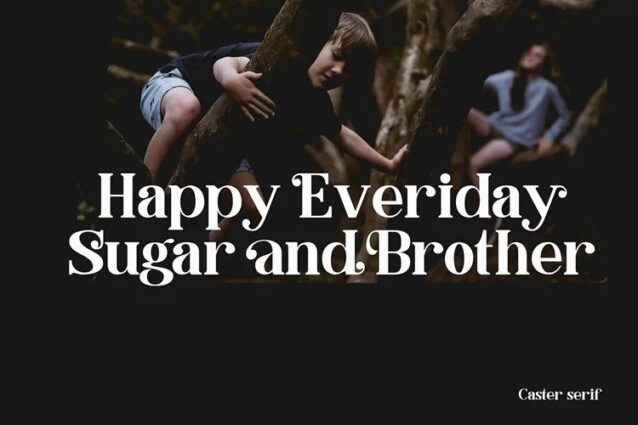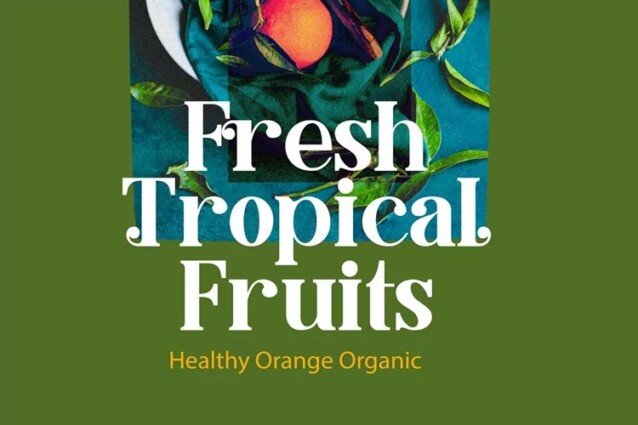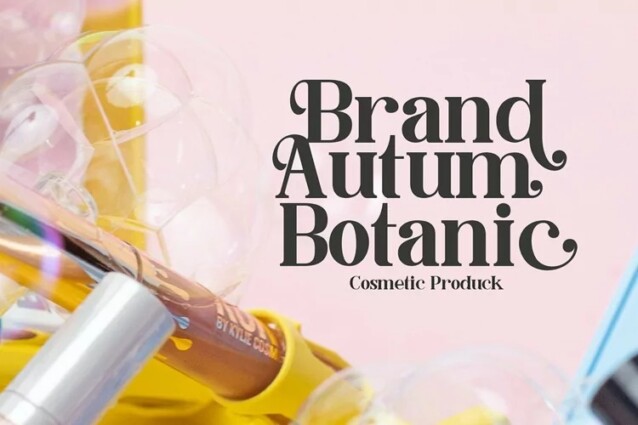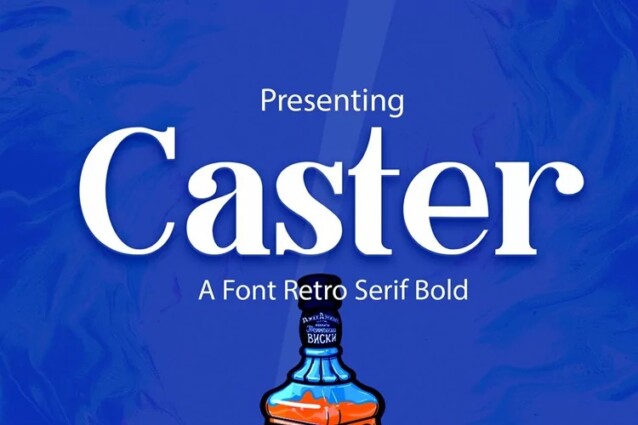
Caster Font
Caster Font is a modern condensed concave serif display typeface. As a typographic display it is useful for posters, logotypes, titles and short text in general.
This font is easy to read and bold, easy to play. the embellished serif of the hat is slightly different from the usual hat to create an alternative glyph. We also designed an attractive uppercase set inside, to enhance your design.